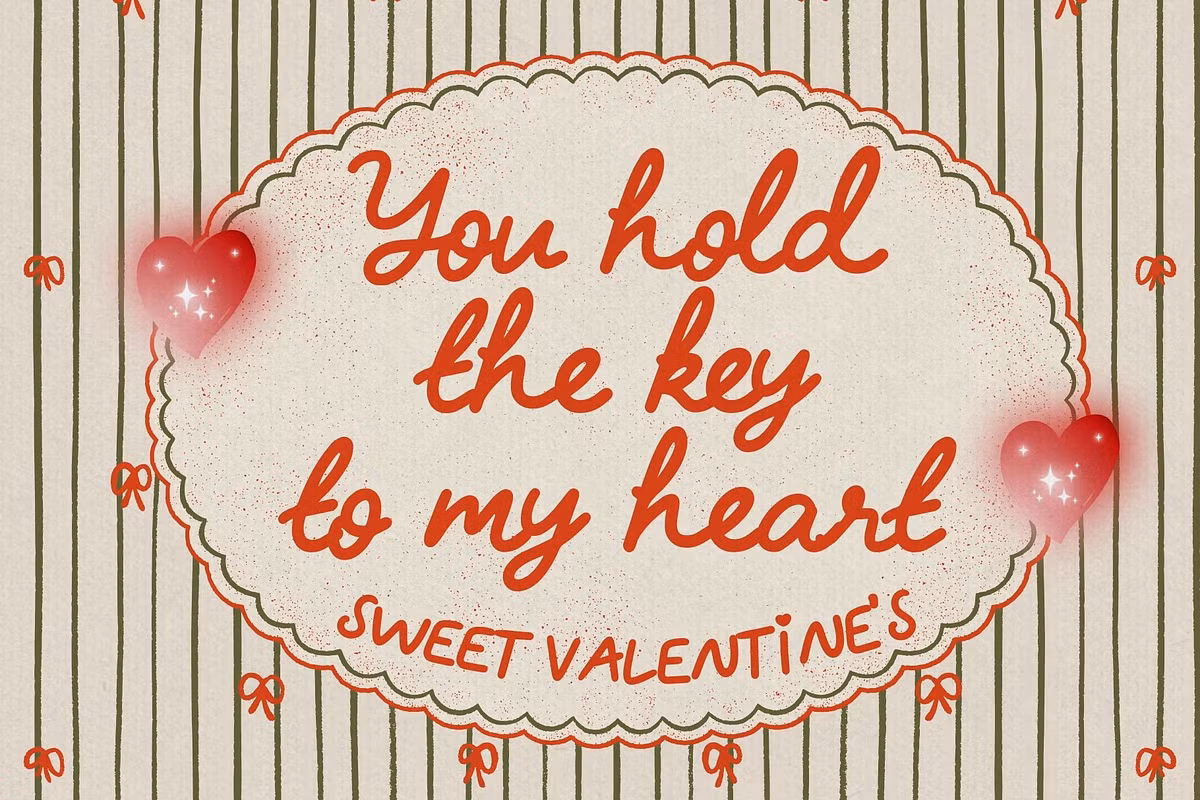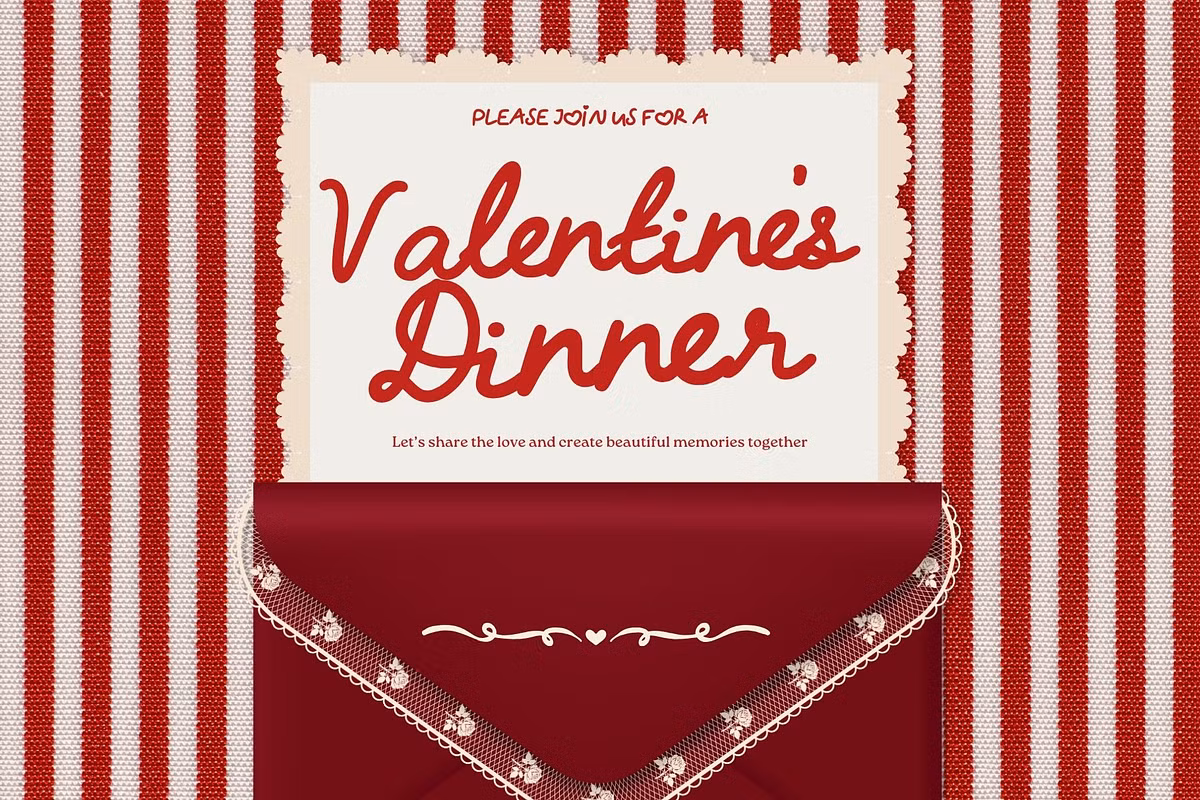
Belovya Script: Playful Valentine-Themed Font for Creative Designs
Introduction to Belovya Script
Belovya is a really cute font that’s all about love and Valentine’s Day. It’s great for lots of different projects because it’s so warm and charming. The person who made it was inspired by handwritten letters and romantic pictures, which makes it feel really personal. There are two main parts to the Belovya font family: a script font that’s smooth and nice to look at, and a sans serif font that’s handwritten and goes really well with the script font. When you use them together, you get a font that’s really unique and full of feeling. It’s like a little bundle of love and personality that you can use to make your projects extra special.
Design Style of Belovya
The way Belovya looks is really nice, with lines that flow and curves that are soft, kind of like when you write by hand. This style of writing is great for showing love and warmth in the things you design. Because it flows so nicely, it’s easy to go from one letter to the next, and it makes your text feel like it’s moving and welcoming. It’s like the words are dancing on the page, and that makes them feel more alive and friendly. The soft curves and flowing lines work together to create a sense of movement and energy, which is perfect for designs that need to feel personal and emotional.
Overall, Belovya is a great choice when you want to add some warmth and personality to your designs. The Belovya font family has a nice mix of styles that can add a personal touch to your text. The hand-drawn sans serif font is simple and easy to read, which makes it perfect for everyday use. At the same time, it has a relaxed and approachable feel that can help you connect with your audience on a more casual level. Whether you’re looking to add some elegance or playfulness to your design, the Belovya font family is a great choice. It’s versatile and can be used in many different ways, allowing you to express yourself creatively and show your love and appreciation in a unique and beautiful way.
Character Sets
Belovya has a big collection of characters, including capital and small letters, numbers, and special symbols. This means you can make lots of different designs to suit various purposes. So, if you’re writing a sweet message or making a bold poster, the characters in Belovya give you what you need to express yourself. You can use them to create something really unique and eye-catching, which is great for getting your message across.
With all these characters to choose from, you’ve got the freedom to be creative and make something that stands out. The font is really good because it works with lots of different languages, so people all around the world can use it. This is especially helpful when you’re making things like greeting cards or invitations that need to be in more than one language. It’s great for reaching people who speak different languages, and it makes it easy to communicate with them in their own language.
Use Cases for Belovya
Belovya is an ideal choice for a wide range of creative projects, especially those centered around themes of love and affection. Here are some specific use cases where this font can shine:
- Valentine’s Day Designs: Whether you’re creating cards, posters, or digital graphics for Valentine’s Day, Belovya adds a playful touch that resonates with the holiday’s romantic spirit.
- Wedding Stationery: From invitations to thank-you cards, the charming imperfections of Belovya lend an authentic handmade feel, making your wedding stationery truly special.
- Social Media Posts: Stand out on platforms like Instagram and Facebook by using Belovya for quotes, captions, and promotional graphics that require a warm, inviting aesthetic.
- Greeting Cards: Create unique greeting cards for any occasion by incorporating Belovya’s script style, which adds a personal touch to your heartfelt messages.
Companies that focus on love, relationships, or gifts can use Belovya to make their logos, packaging, and ads feel more warm and personal. This can help people feel connected to the brand.
To maximize the impact of your designs using the Belovya font family, consider pairing it with complementary typefaces to create a balanced and visually appealing layout. Here are some suggestions:
- With Modern Sans Serifs: When using Belovya, try pairing it with simple, modern fonts like Montserrat or Open Sans. This combination creates a fresh, up-to-date look that still feels welcoming.
- With Classic Serifs: Combine Belovya with a classic serif font like Playfair Display for an elegant and sophisticated look, perfect for wedding invitations and upscale branding.
- With Handwritten Fonts: For a more playful and casual design, consider pairing Belovya with another handwritten font to emphasize the personal touch in your projects.
Whether you’re trying to say “I love you” or just want to add some love to your designs, Belovya is a great choice. It’s like a big hug for your typography toolkit, and it’s especially useful on romantic occasions. So, go ahead and use Belovya to make your designs a little more loving and creative – it’s a great way to make your message shine!